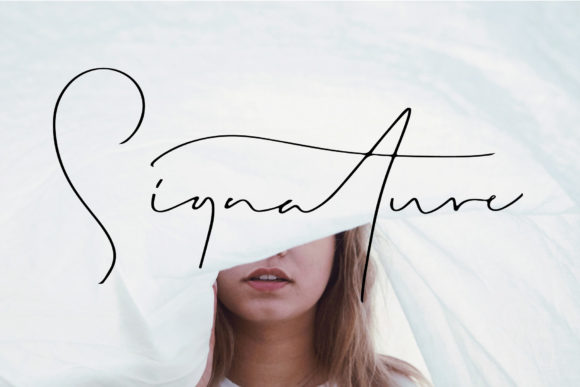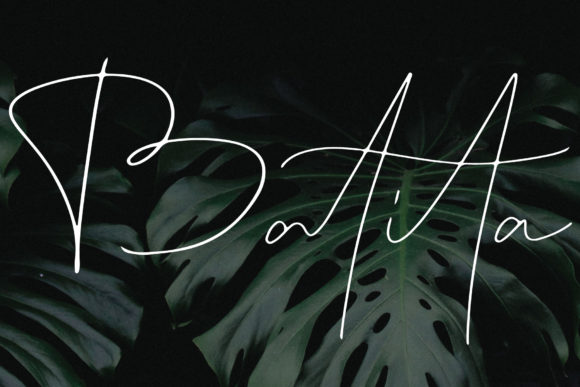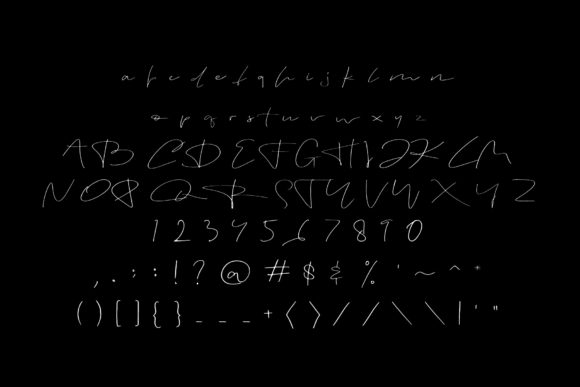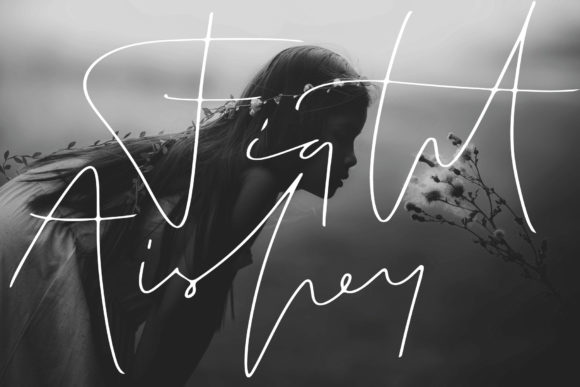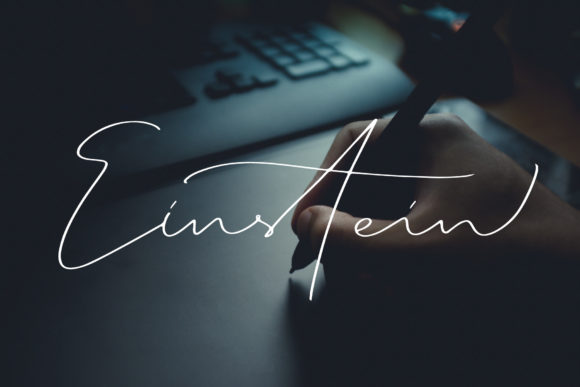
HomeScript FontsEinstein Font Script Fonts Einstein Font FacebookXPinterestWhatsApp Einstein Font Poster 2 Einstein Font Poster 3 Einstein Font Poster 4 Einstein Font Poster 5 About Einstein Font Einstein is a classy and elegant script with strong attention to detail. Fall in love with its contemporary charm! DOWNLOAD NOW People also explored Orlando Font Camping Font Elise Dafisa Script Font Lonely Melody Font Monolog Font Zeneca Font Trackers Font Niesha Font Mens Charity Pink Bella Canvas 3001 Mock 303 0 TagsEinstein Font Previous articleCinnamon FontNext articleMetanoia Font LEAVE A REPLY Cancel reply Comment: Please enter your comment! Name:* Please enter your name here Email:* You have entered an incorrect email address! Please enter your email address here Website: Save my name, email, and website in this browser for the next time I comment. Personal Use Free Metal Lord Personal Use Free Read more about this font Forturn Personal Use Free Read more about this font Bally Girl Personal Use Free Read more about this font Frizton Personal Use Free Read more about this font BLOG How to Install and Use Fonts on Windows, macOS, and Web Projects How to Install and Use Fonts on Windows, macOS, and Web Projects Fonts are a crucial part of design and branding. Whether you’re designing a... Elegant Wedding Invitation Fonts – Handwritten & Script Fonts Modern Sans-Serif Fonts That Brands Love in 2025 How to Cut Any Font on Cricut: Convert a Font to SVG (Free)